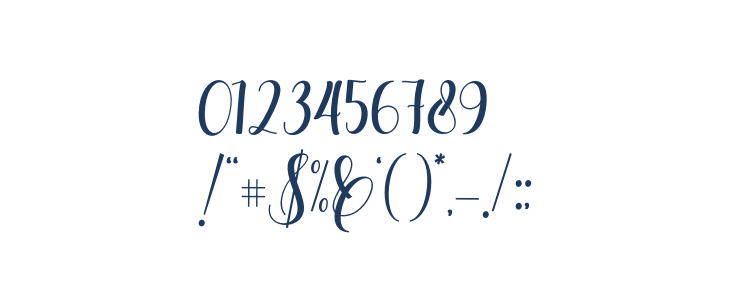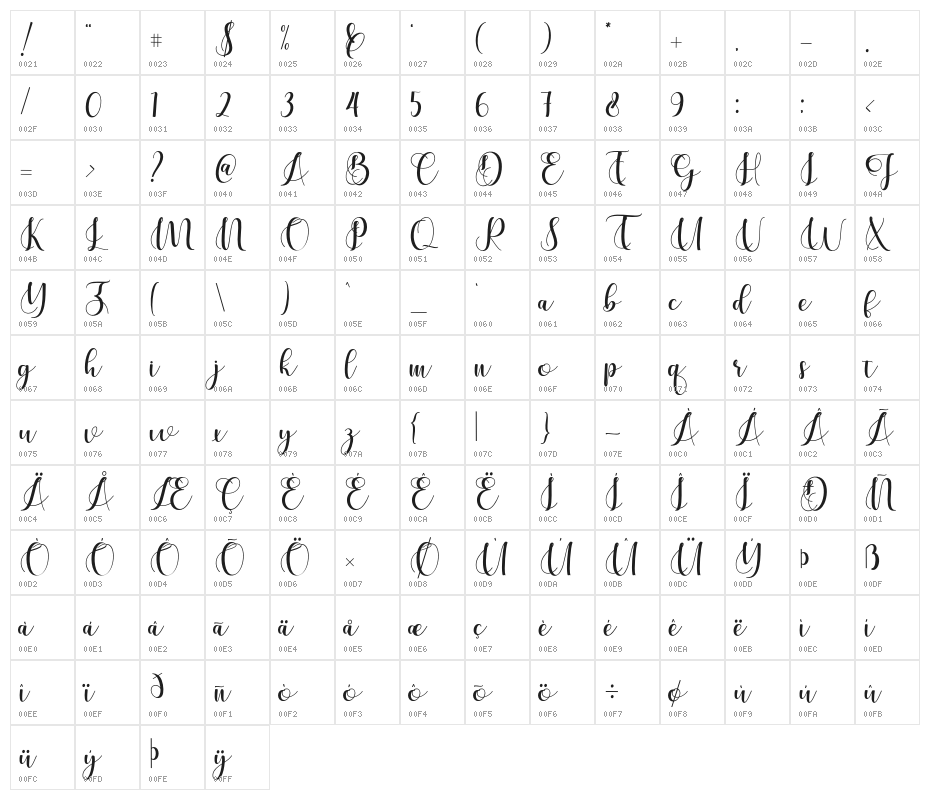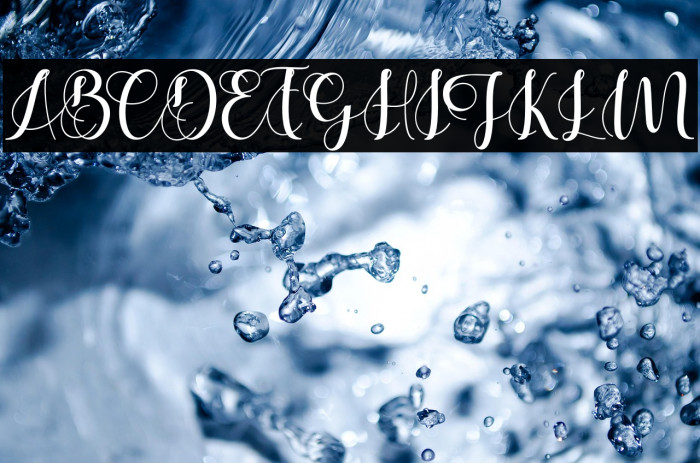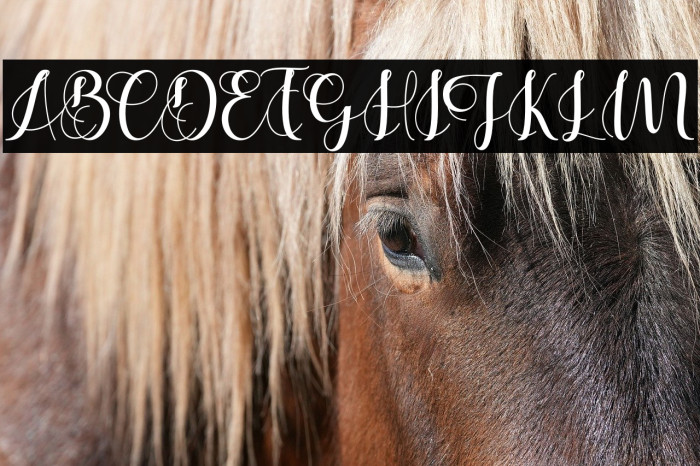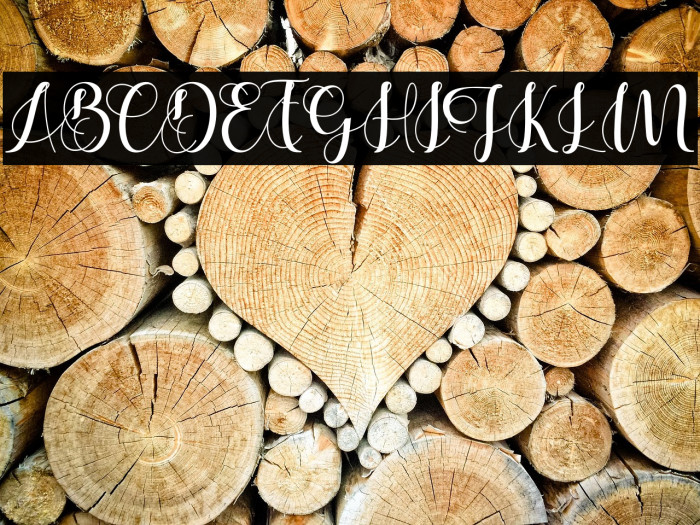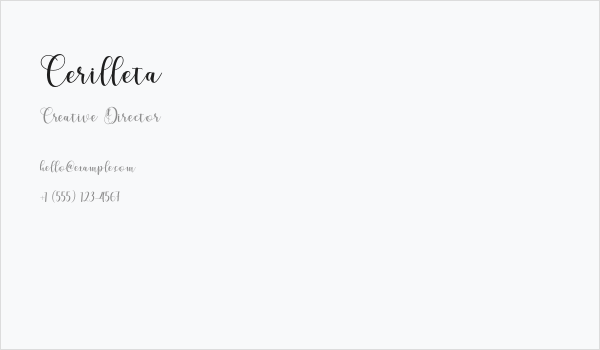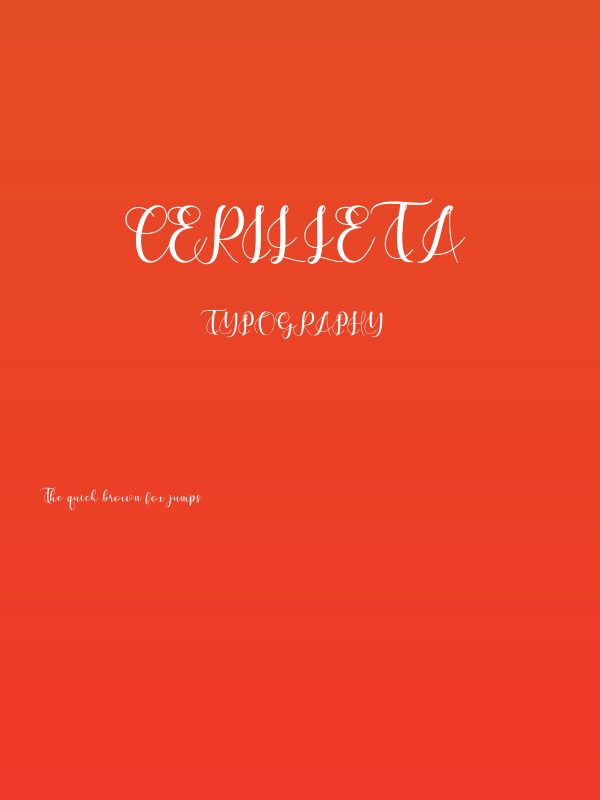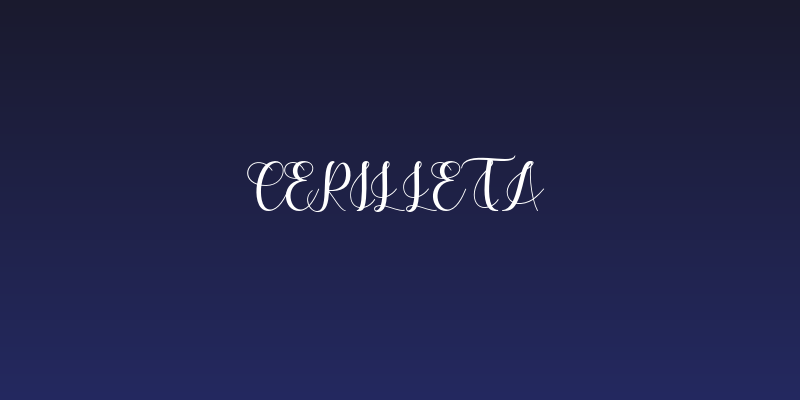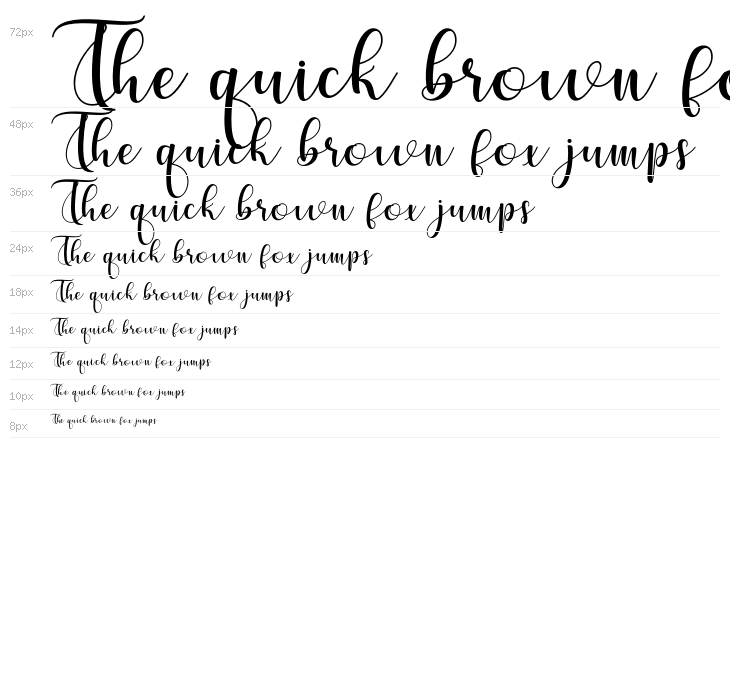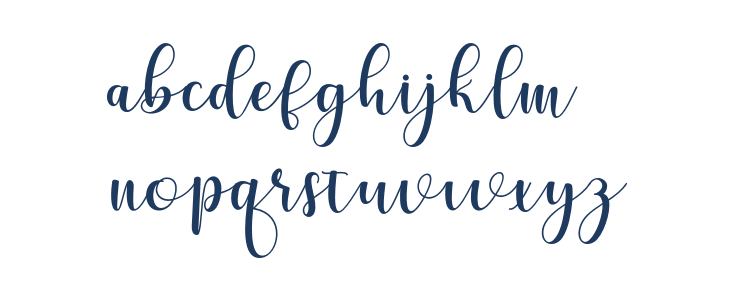
Cerilleta Font
Cerilleta Description
This font features an elegant and flowing script style, characterized by its smooth, cursive strokes and graceful curves. The uppercase letters are particularly ornate, with intricate loops and swirls that add a touch of sophistication. The lowercase letters maintain a consistent flow, enhancing readability while preserving the decorative nature. The numerals are stylishly integrated, matching the overall aesthetic with their own unique flair. Special characters are designed with the same attention to detail, ensuring a cohesive look across all glyphs. This font exudes a sense of elegance and charm, making it suitable for a variety of creative applications.
| Overall Style | Elegant, Decorative |
| Proposed Projects | Ideal for wedding invitations, elegant branding, greeting cards, and decorative posters. |